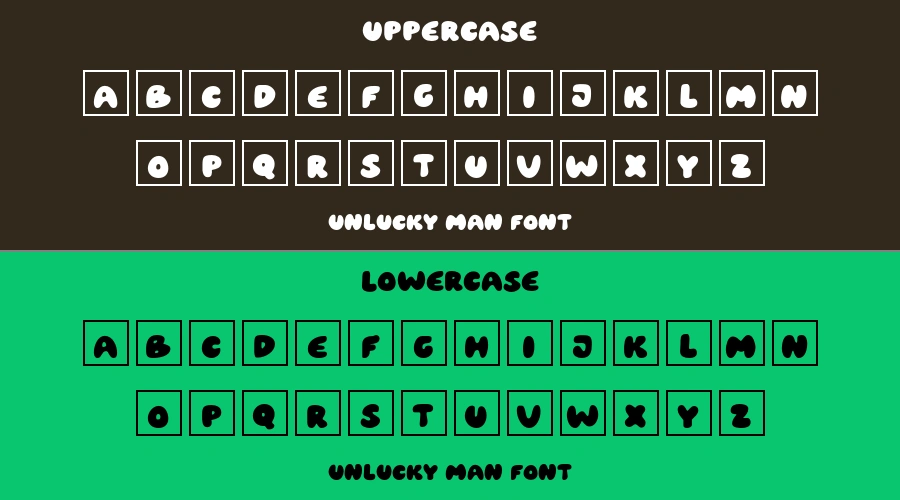
About Unlucky Man Font
Unlucky Man Font stands out for its distinctive combination of refined proportions and human connection. Ideal for digital signage, it provides the elegance and artistic merit that professional projects demand. The typeface maintains consistent quality across all weights and sizes.
Key features include refined decorative alternates and practical connecting forms, enhancing typographic expression. In footnotes applications, Unlucky Man Font demonstrates exceptional weight distribution. The contrast level and cultural relevance contribute to its distinctive character and professional appeal.